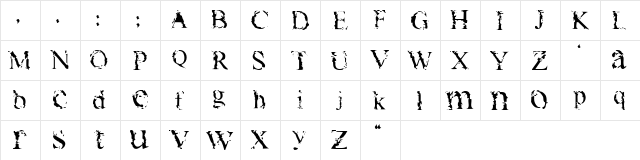
Times New dirty Roman Normal Font Preview
Times New dirty Roman Normal
Design Context for Times New dirty Roman Typeface
Times New dirty Roman takes a measured approach to typography — its balanced proportions and neutral character make it a reliable workhorse for both digital and print work.